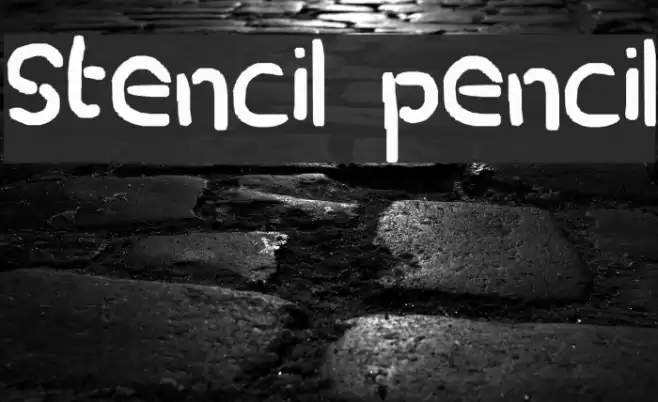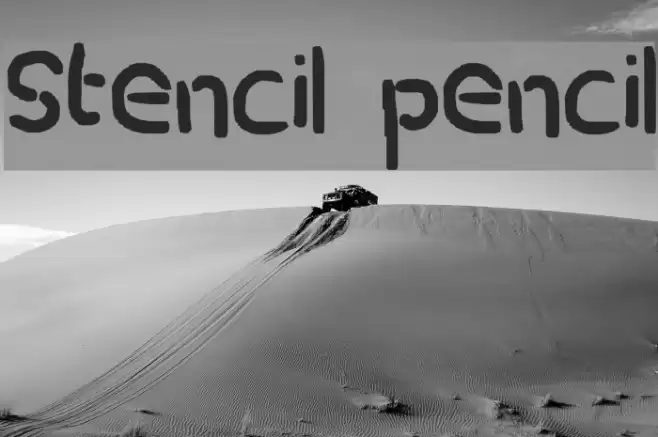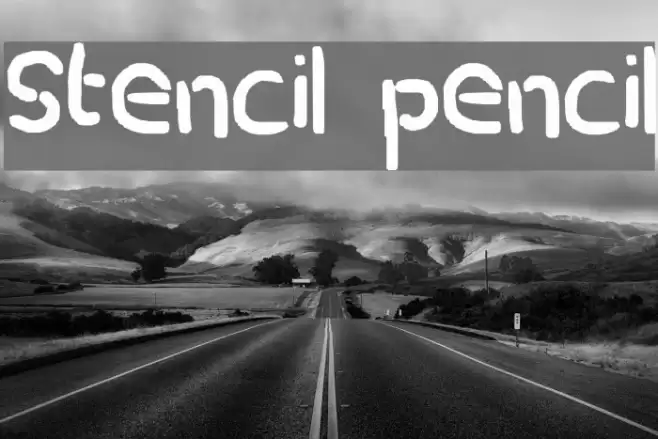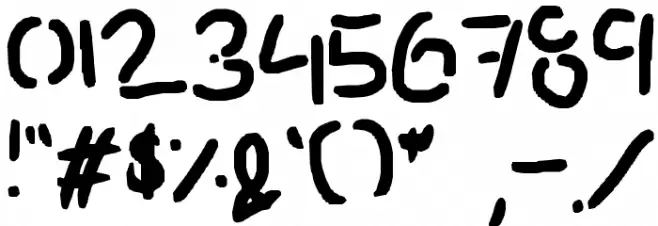
stencil pencil Font
stencil pencil Description
This font features a bold, stencil-like appearance with a hand-drawn aesthetic. The characters are thick and rounded, giving a playful yet structured look. The uppercase and lowercase letters maintain a consistent style, with slightly irregular edges that add to the hand-crafted feel. Numbers and special characters follow the same design principles, ensuring uniformity across all glyphs. The font's unique style makes it stand out, suitable for creative and artistic projects where a casual and approachable tone is desired.
A bold, hand-drawn stencil font with a playful and structured appearance from Uncategorized fonts.